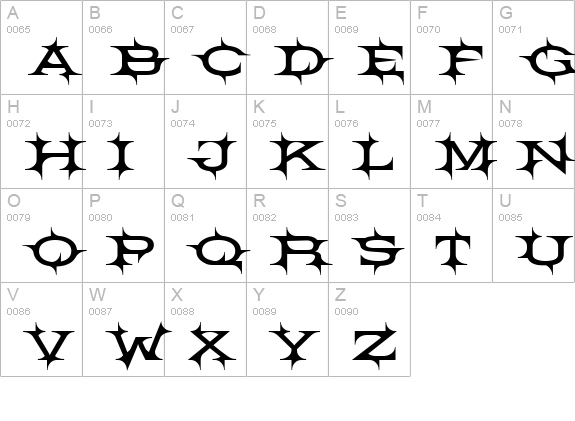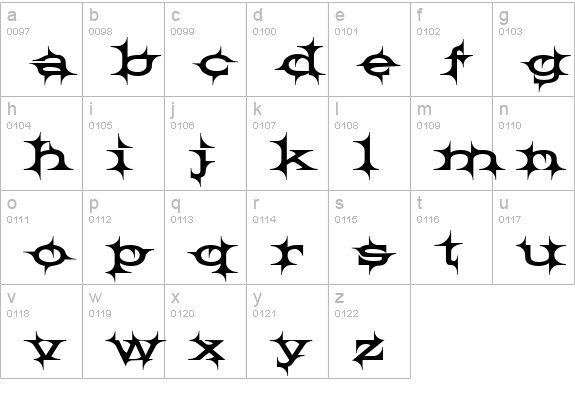
Barbecue Font Details
Barbecue font is a playful and inviting typeface perfect for adding a touch of charm to your designs. With its rustic and handcrafted appearance, this font exudes warmth and casualness, making it ideal for projects that require a laid-back and friendly vibe. Whether you're working on a barbecue restaurant menu, a summer party invitation, or a fun poster, Barbecue font will bring your text to life with its unique style. Best of all, Barbecue font is free to download at FontsMarket.com, allowing you to easily access this delightful typeface for all your creative endeavors. Don't miss out on the opportunity to enhance your designs with the whimsical flair of Barbecue font - download it today and let your creativity shine!